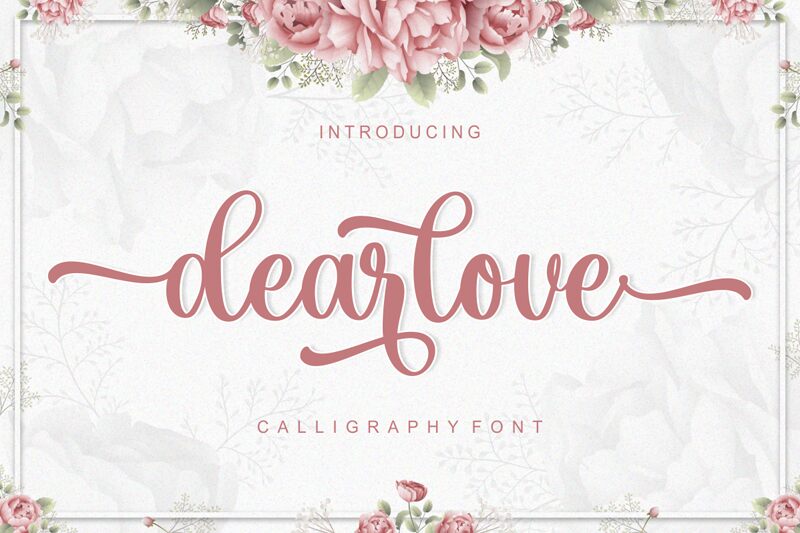
Dearlove font is a creative calligraphy font designed by Muhamad FIkry Nuralif of Fikryal.Co Studio.
Features : Lowercase Beginning & Ending Swashes, Extra Swashes & Ligatures.